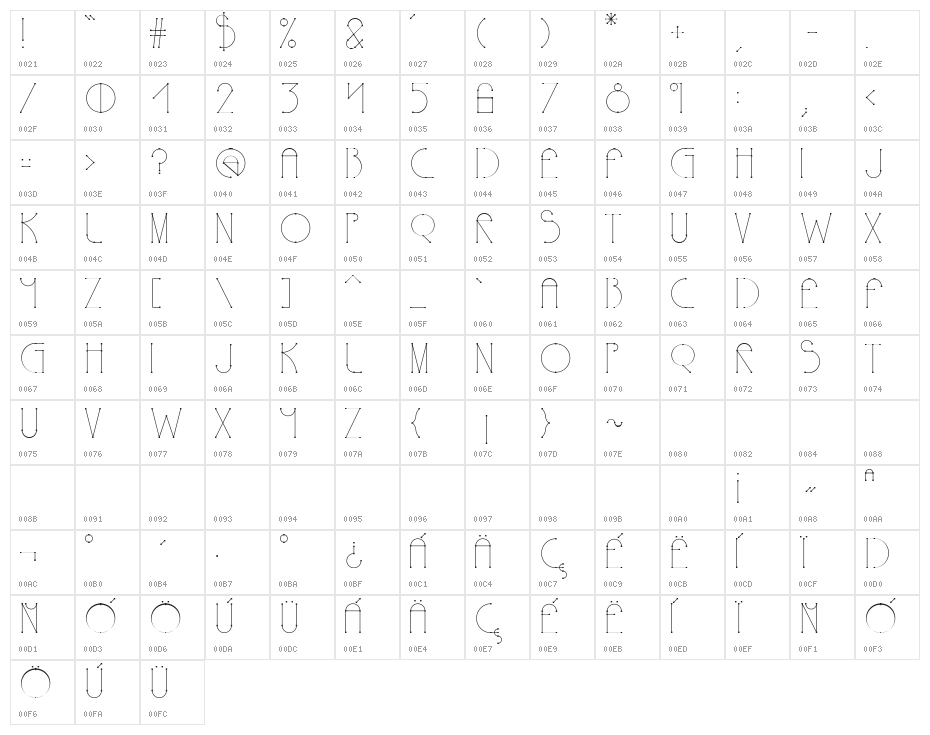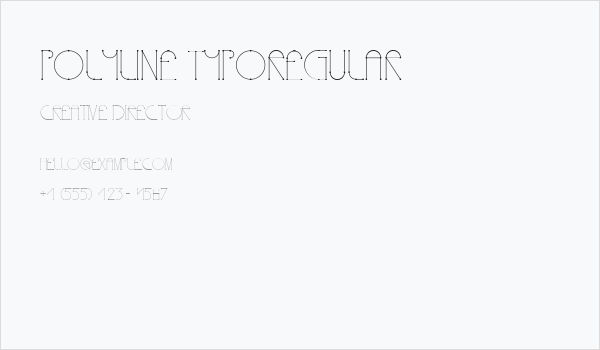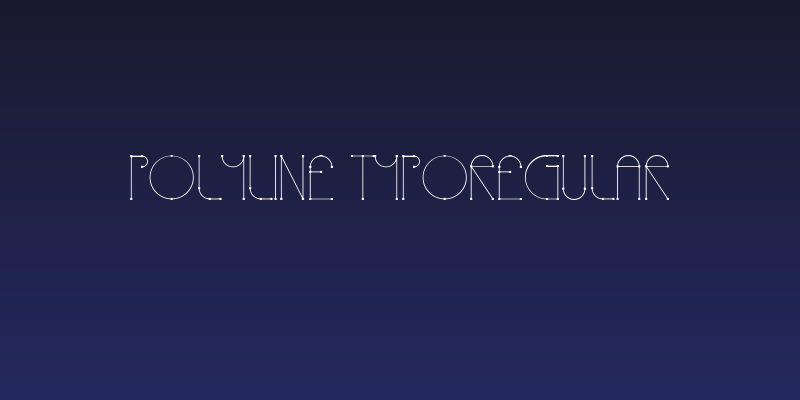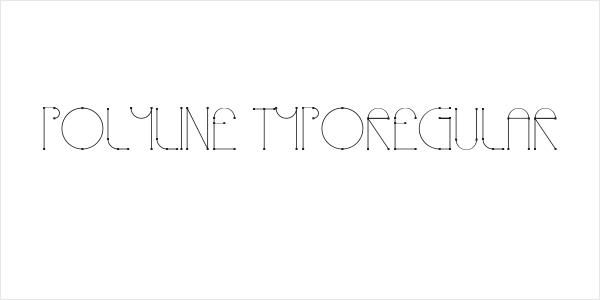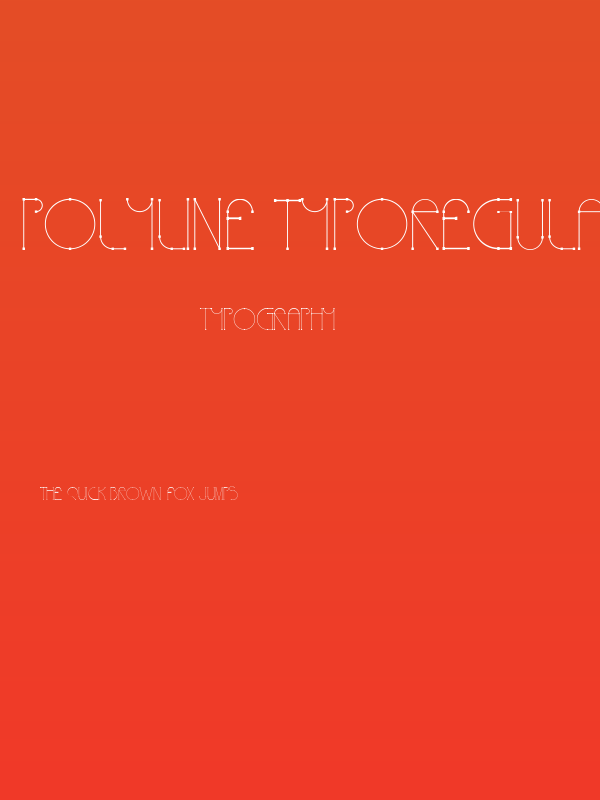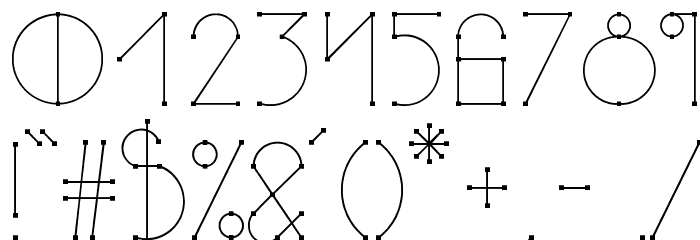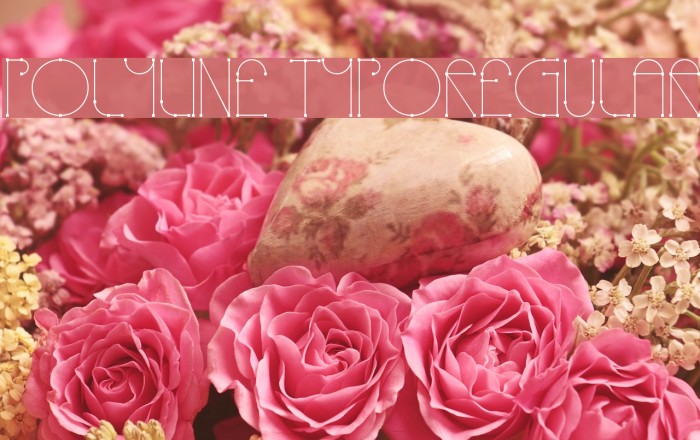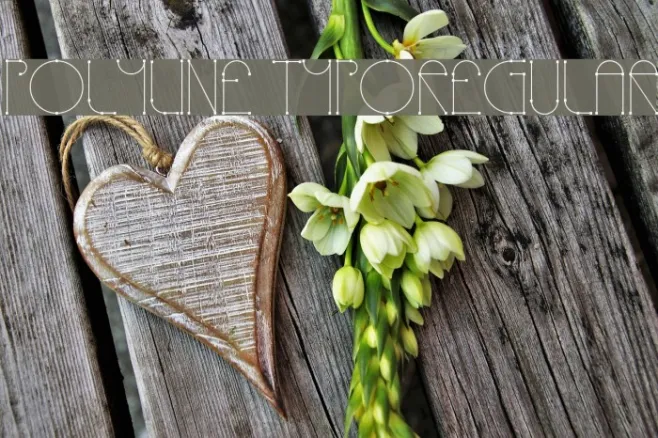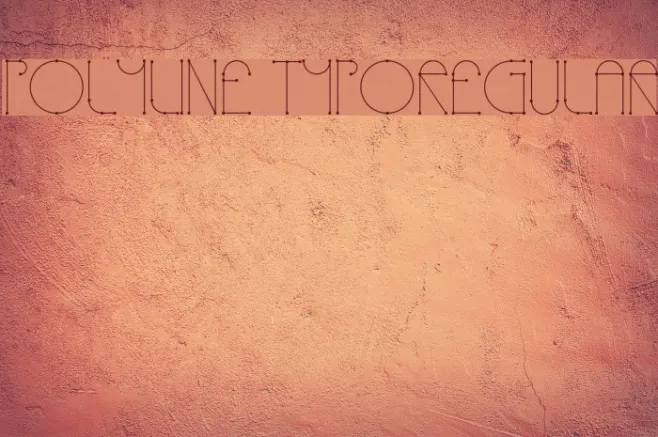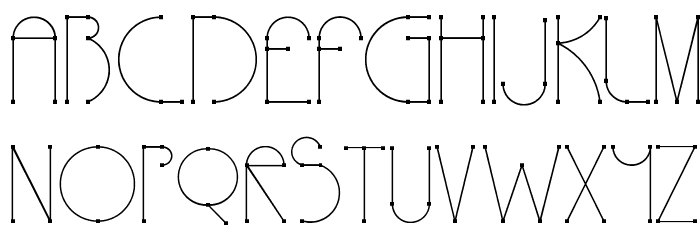
Polyline TypoRegular Font
Polyline TypoRegular Description
This font features a unique geometric design with a modern and minimalist aesthetic. Each character is constructed using straight lines and curves, connected by visible nodes, giving it a technical and structured appearance. The uppercase and lowercase letters maintain a consistent height, creating a uniform look. The numerals and special characters follow the same design principles, ensuring cohesion across all elements. This font's distinct style makes it stand out, offering a futuristic and digital feel that is both innovative and visually appealing.
| Use Case | Logos, Headlines, Digital interfaces |
| Proposed Projects | Ideal for tech-related branding, digital art projects, modern posters, and futuristic UI designs. |